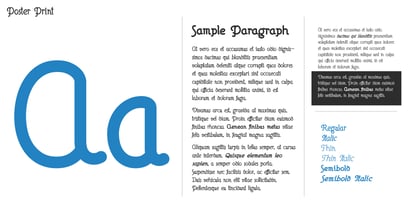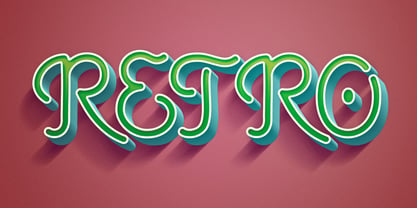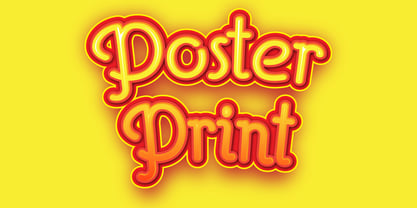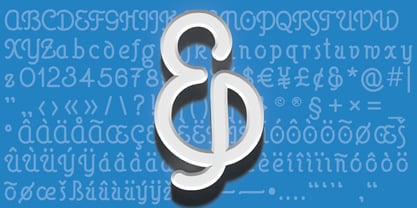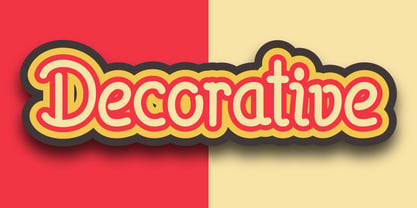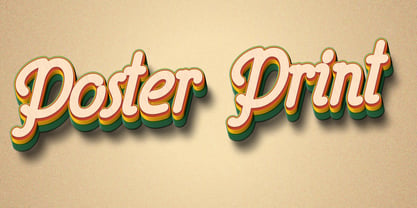
Poster Print
von designoMatt
Poster Print is another font inspired by early 20th Century sign painters’ manuals and guides. This particular font, like Sonas and Stróc, is also one created using strokes. This will allow us to extend the weights in the future. Poster Print is built on round, sweeping curves and as such presents as an open and bouncy family. Although it can be easily read in typeset, much of its value may be when it is used in headlines, logos, and other decorative uses for brands and campaigns.